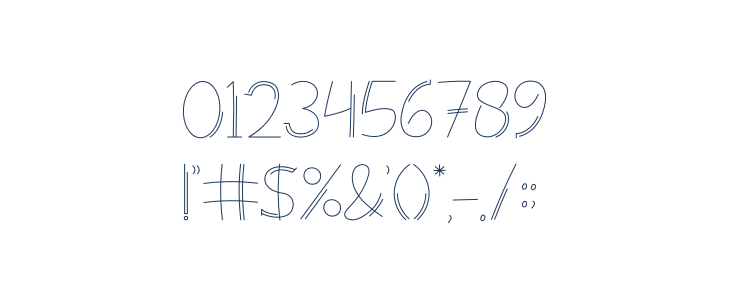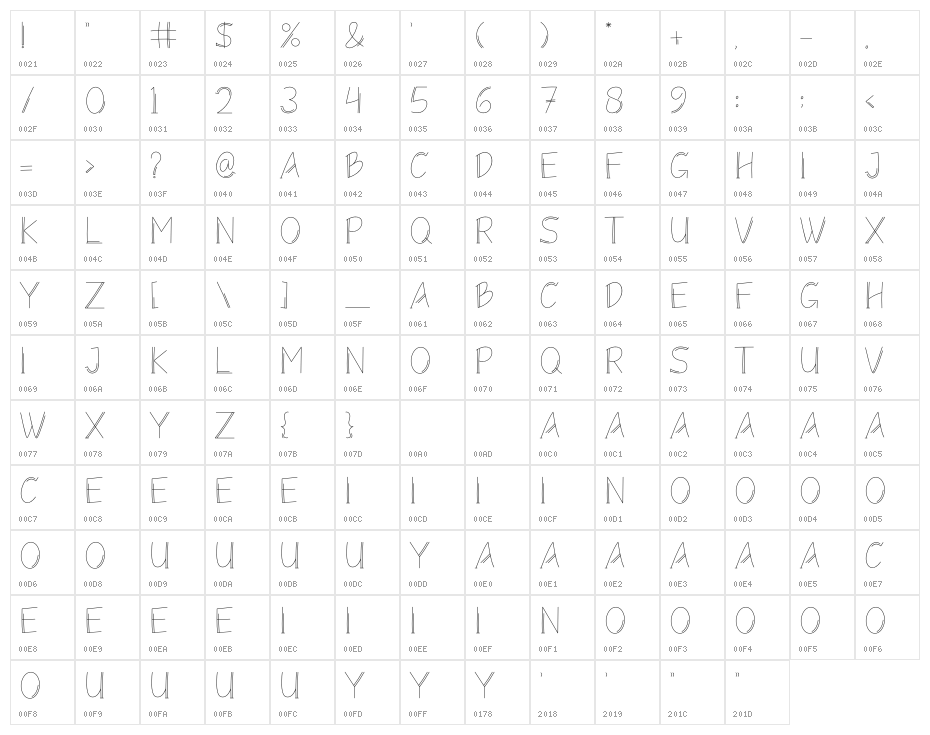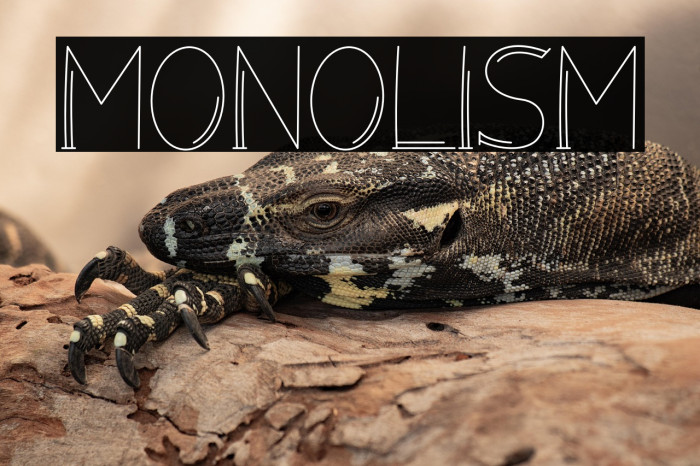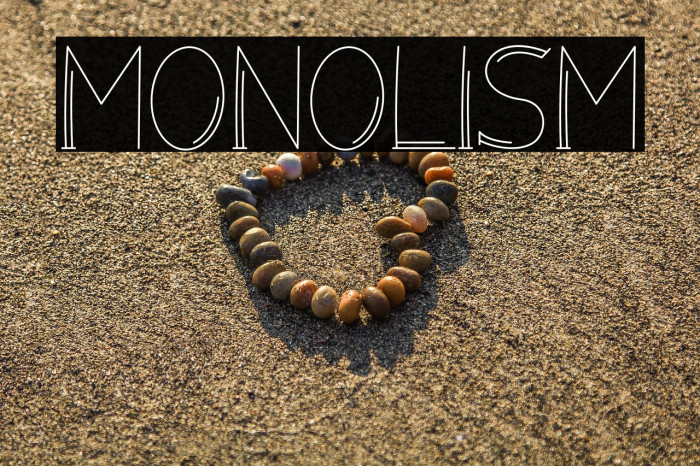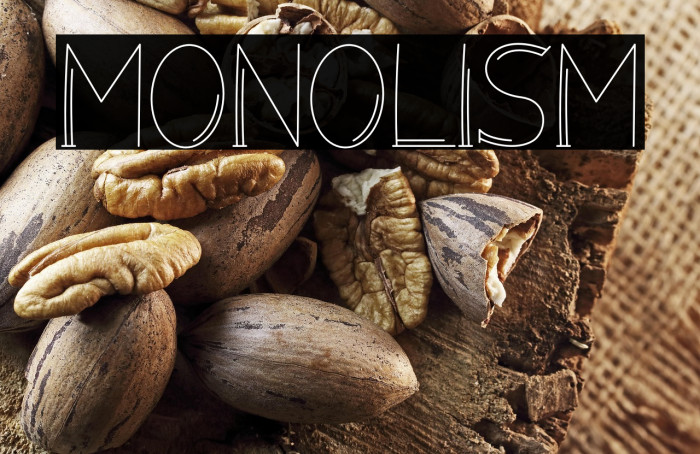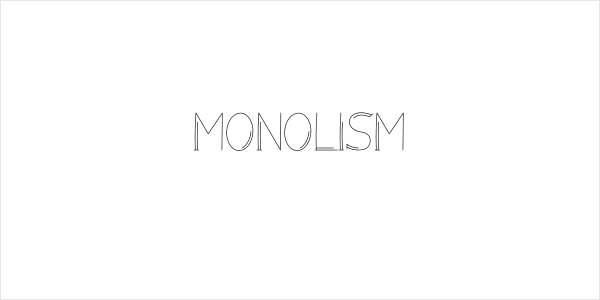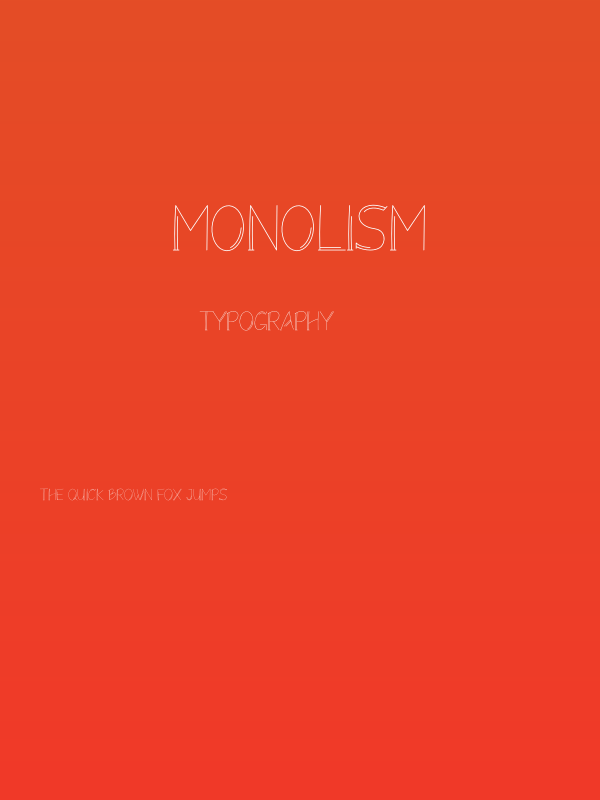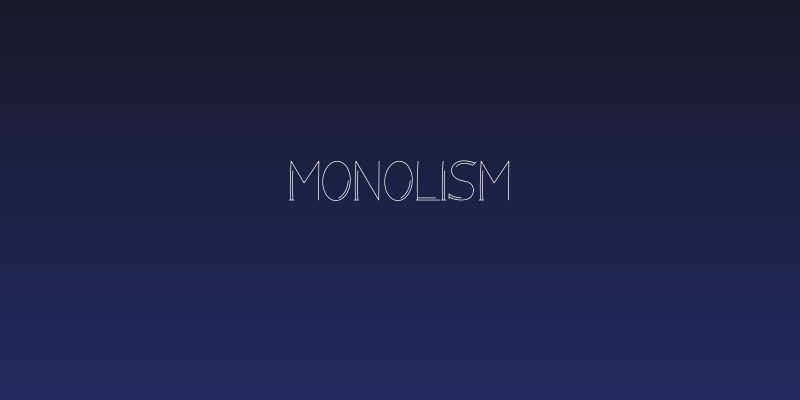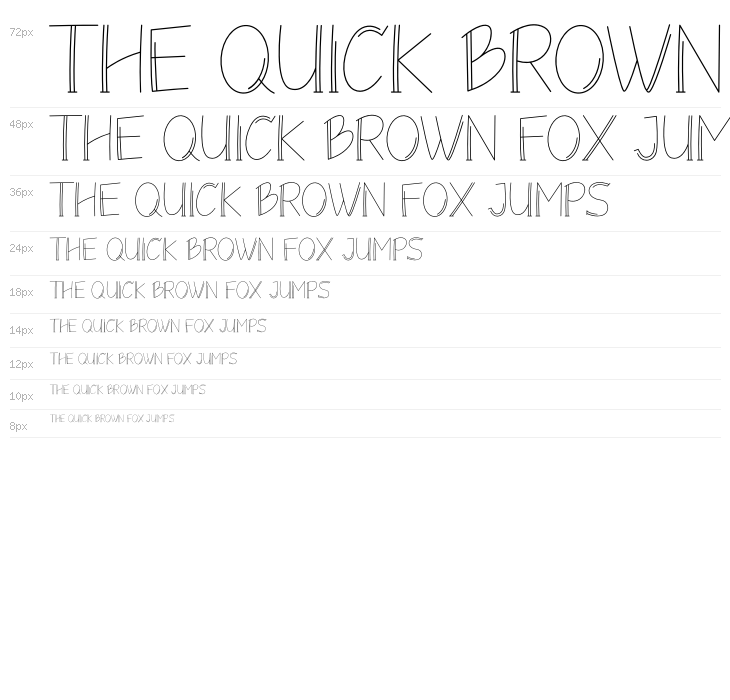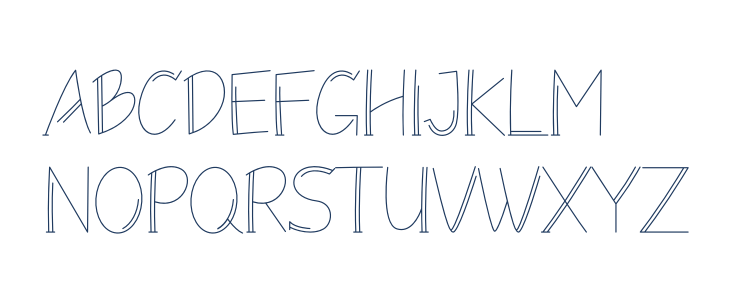
Monolism Font
Monolism Description
This font features a modern and playful design with a hand-drawn aesthetic. The characters are outlined, giving them a unique, sketch-like appearance. The uppercase and lowercase letters maintain a consistent style, with elongated strokes and slightly irregular lines that add to the whimsical feel. The numerals and special characters follow the same design principles, ensuring a cohesive look throughout. Its distinctive style makes it stand out, offering a fresh take on traditional letterforms.
| Use Case | Logos, Headlines, Posters |
| Proposed Projects | Ideal for creative projects such as children's books, playful branding, artistic posters, and unique invitations. |